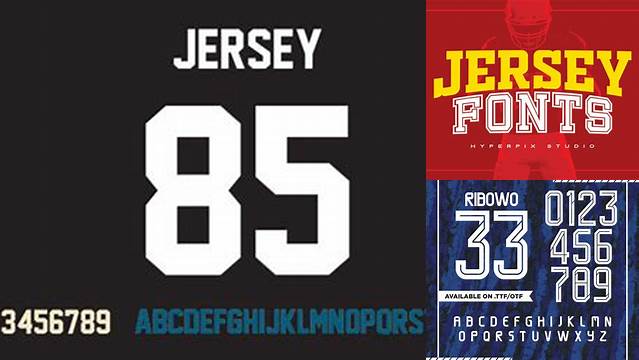
Best Free Jersey Fonts: Downloadable Options
Choosing the right font for your jersey can make all the difference, whether you're designing for a sports team, an esports squad, or just creating a custom piece of apparel. A font can convey the spirit, strength, and identity of the team or individual. Fortunately, there are many options available, including some fantastic free jersey fonts. In this article, we'll explore some of the best free jersey fonts you can download and use to create standout designs. From athletic and modern to classic and bold, we've got you covered.
Understanding the Importance of Font Choice in Jersey Design
When it comes to jersey design, the font you choose plays a crucial role in communicating the team's identity and creating a cohesive look. More than just selecting something that looks good, the right font can evoke feelings of strength, speed, and unity. Think about the iconic fonts used by professional sports teams; they're instantly recognizable and deeply tied to the team's brand. A well-chosen font enhances the overall aesthetic appeal of the jersey and ensures readability, which is essential for players' names and numbers.
Consider the target audience and the message you want to convey when selecting a font. A modern, sans-serif font might be perfect for a cutting-edge esports team, while a classic block letter font could be more suitable for a traditional sports club. The font should also complement the team's colors and logo, creating a harmonious and professional appearance. Beyond aesthetics, readability is paramount. Ensure the font is clear and easy to read, even from a distance. This is especially important for player names and numbers. Additionally, think about how the font will look when applied to different materials and printing techniques. Some fonts may lose their clarity or impact when embroidered or printed on certain fabrics. In essence, your font choice is a foundational element of your jersey's design, capable of elevating or undermining its overall impact. Taking the time to carefully consider your options and test different fonts can make all the difference in creating a jersey that truly represents your team.
Top Free Jersey Fonts for Download
Finding the perfect jersey font doesn't have to break the bank. Several excellent free fonts are available that can give your designs a professional and stylish look. Here are some of the best free jersey fonts you can download:
1. Bebas Neue
Bebas Neue is a popular sans-serif font known for its clean lines and tall, narrow letters. This font is highly legible and gives a modern, athletic feel, making it perfect for jersey designs. Its versatility ensures it looks great on various sports apparel, from basketball to soccer jerseys. Bebas Neue’s clean aesthetic offers excellent readability, which is essential for player names and numbers. This font has become a staple in sports design due to its ability to convey both strength and simplicity. When used effectively, Bebas Neue can elevate a jersey's overall look, providing a contemporary edge that appeals to a wide audience. It’s also incredibly adaptable, working well with various color schemes and design elements. For designers seeking a reliable and stylish option, Bebas Neue remains a top choice.
When incorporating Bebas Neue into a jersey design, consider the spacing and size to maximize readability. Experiment with different weights and styles to achieve the desired effect. Whether you're aiming for a bold statement or a subtle enhancement, Bebas Neue provides the flexibility needed to create a standout design. One of the key advantages of Bebas Neue is its availability. Being a free font, it’s accessible to designers of all levels, making it a cost-effective solution without compromising on quality. Its widespread use also means there's a wealth of inspiration available, showcasing how other designers have successfully integrated it into their projects. From professional sports teams to amateur leagues, Bebas Neue has proven its worth as a go-to font for jersey design.
2. Montserrat
Montserrat is a geometric sans-serif font inspired by urban typography in Buenos Aires. Its clean and modern design makes it a great choice for jersey designs that need a contemporary feel. The font is highly readable and works well for both names and numbers.
Montserrat's strength lies in its versatility. It can be used effectively in various design contexts, making it an excellent option for creating a unified brand identity. Its geometric structure ensures that each letter is clear and distinct, contributing to its overall readability. When paired with the right colors and layout, Montserrat can help a jersey design stand out while maintaining a professional and polished look. Designers often choose Montserrat for its ability to strike a balance between modern aesthetics and functional design, making it a valuable asset in any design project. The font’s neutrality also means it can be easily adapted to suit different sports and team styles, enhancing its widespread appeal.
Using Montserrat in jersey design provides a sleek, modern look that appeals to many sports teams. Its clarity ensures player names and numbers are easily visible, which is crucial for both players and fans. The font’s geometric shapes offer a balanced and harmonious appearance, making it easy to integrate into various design themes. One of the standout features of Montserrat is its extensive range of weights and styles, providing designers with the flexibility to create unique and customized designs. Whether you need a bold, impactful statement or a subtle, understated touch, Montserrat can deliver. This versatility makes it a favorite among designers looking for a reliable and adaptable font. Additionally, Montserrat’s open-source license means it’s free to use for both personal and commercial projects, making it an accessible option for everyone.
3. Oswald
Oswald is a reworked version of the classic gothic typeface. It's designed to be used freely across the internet by digital device users. Oswald is a great option for creating a vintage or retro jersey look. Its condensed style makes it perfect for fitting longer names onto jerseys.
The font's robust and condensed letters lend themselves well to designs needing a bold and impactful statement. Its versatility makes it suitable for various applications, from headlines to body text, ensuring that it can be a reliable choice for a cohesive design strategy. The widespread use of Oswald is a testament to its enduring appeal and effectiveness, making it a valuable asset for designers aiming to create professional and accessible content. One of the key advantages of Oswald is its open-source license, which allows it to be used freely for both personal and commercial projects, removing financial barriers and encouraging widespread adoption.
Choosing the right font for your jersey is essential for creating a design that looks professional and represents your team's identity. Fortunately, many excellent free jersey fonts are available for download. By considering factors such as readability, style, and the sport for which the jersey is intended, you can find the perfect font to make your design stand out. So go ahead, explore these options, and create a jersey that your team will be proud to wear!